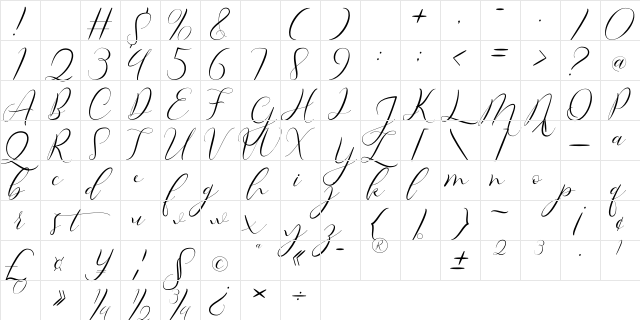
Misterlove Regular
Design Context for Misterlove Typeface
Misterlove is a composed and adaptable typeface that performs quietly and consistently across a wide range of design contexts.
Pro Tip: Use Misterlove in both headline and body roles to test its range before committing to a single application.